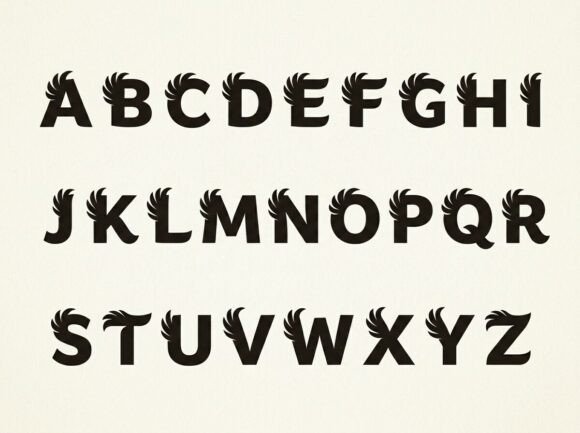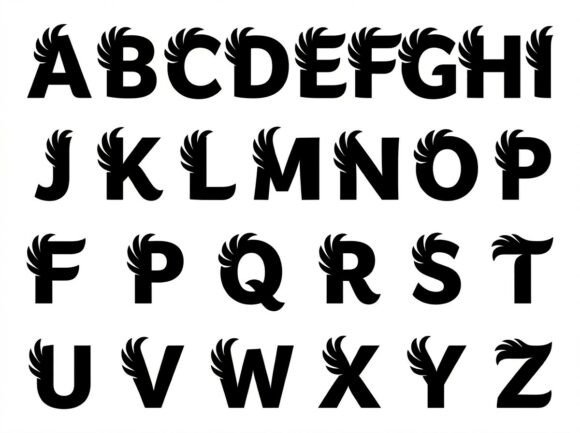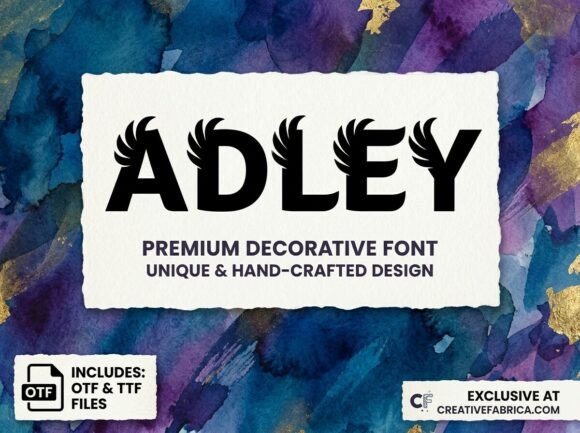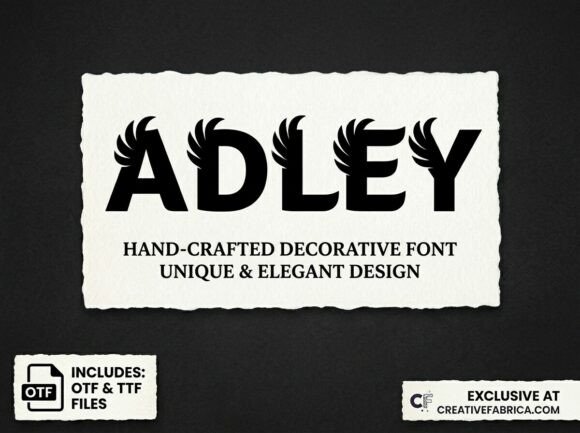
Introducing Adley Font: Elevate Your Creative Vision
Are you a designer or crafter looking for a unique and captivating font to elevate your creative projects? Look no further than Adley, a hand-crafted decorative font that seamlessly blends modern structural boldness with ethereal, natural motifs. In this article, we’ll dive into the features and benefits of Adley, and explore how this extraordinary typeface can enhance your luxury boutique branding, fantasy book titles, mythical-themed event stationery, and high-end lifestyle logos.
The Unique Characteristics of Adley Font
Adley Font is a one-of-a-kind typeface that features clean, high-impact sans-serif letterforms where the primary stems are adorned with sweeping, feathered wing flourishes. The contrast between the solid, stable base and the rhythmic, organic plumes creates a visual narrative of strength and flight. This distinctive design makes Adley perfect for projects that require a sense of artisanal elegance and soaring imaginative power.
Modern Structural Boldness Meets Ethereal Motifs
Adley’s design combines modern structural boldness with ethereal, natural motifs, creating a captivating visual experience. The clean lines and geometric shapes of the sans-serif letterforms provide a solid foundation, while the sweeping flourishes add a touch of whimsy and elegance. This unique blend of styles makes Adley an excellent choice for designers and crafters looking to create something truly exceptional.
Perfect for Luxury Branding and High-End Lifestyle Logos
Adley Font is an excellent choice for luxury boutique branding and high-end lifestyle logos. The font’s unique blend of modern boldness and ethereal motifs creates a sense of sophistication and elegance, perfect for high-end brands. Whether you’re designing a logo for a luxury fashion brand or a high-end lifestyle product, Adley is sure to make a lasting impression.
Fantasy Book Titles and Mythical-Themed Event Stationery
Adley Font is also perfect for fantasy book titles and mythical-themed event stationery. The font’s sweeping flourishes and ethereal motifs evoke a sense of magic and wonder, making it ideal for projects that require a touch of fantasy and adventure. Whether you’re designing a cover for a supernatural thriller or creating event stationery for a mythical-themed party, Adley is sure to add a touch of enchantment.
Key Features and Benefits of Adley Font
- Unique and captivating design: Adley’s distinctive design makes it perfect for projects that require a sense of artisanal elegance and soaring imaginative power.
- Hand-crafted decorative font: Adley is a hand-crafted font, ensuring a level of quality and attention to detail that’s hard to find in digital fonts.
- Clean and high-impact sans-serif letterforms: Adley’s clean lines and geometric shapes make it perfect for projects that require a sense of modernity and sophistication.
- Sweeping, feathered wing flourishes: The sweeping flourishes add a touch of whimsy and elegance, making Adley perfect for projects that require a sense of fantasy and adventure.
How to Use Adley Font in Your Design Projects
Adley Font is easy to use and can be incorporated into a variety of design projects. Here are a few tips for using Adley in your designs:
- Use Adley as a headline font: Adley’s unique design makes it perfect for headlines and titles.
- Pair Adley with a complementary font: Pair Adley with a complementary font to create a sense of contrast and visual interest.
- Experiment with different colors and textures: Adley’s design looks great in a variety of colors and textures, so don’t be afraid to experiment and find the perfect combination for your project.
In conclusion, Adley Font is a unique and captivating decorative font that’s perfect for designers and crafters looking to elevate their creative vision. With its modern structural boldness, ethereal motifs, and sweeping flourishes, Adley is sure to add a touch of artisanal elegance and soaring imaginative power to any design project. Whether you’re designing a luxury boutique brand, a fantasy book title, or a high-end lifestyle logo, Adley is the perfect choice.